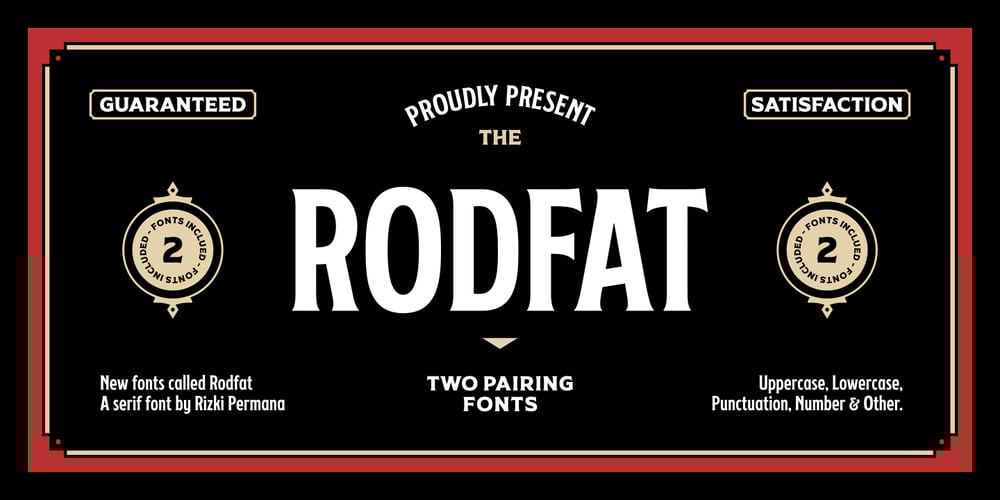
Rodfat Font Family was designed by Rizki Permana and published by Rizki Permana. Rodfat contains 2 styles and family package options. Rodfat is a gorgeous, old-timey display font with a modern feel! Inspired by the industrial revolution, It will bring back the early days of the 20th century.This collection comes in two styles: One and Two. It is possible to be paired perfectly when used together.Perfectly suited for any display use. It could easily work for design product names, posters, signage, packages, logos, labels, and eye-pleasing typographic designs and more.